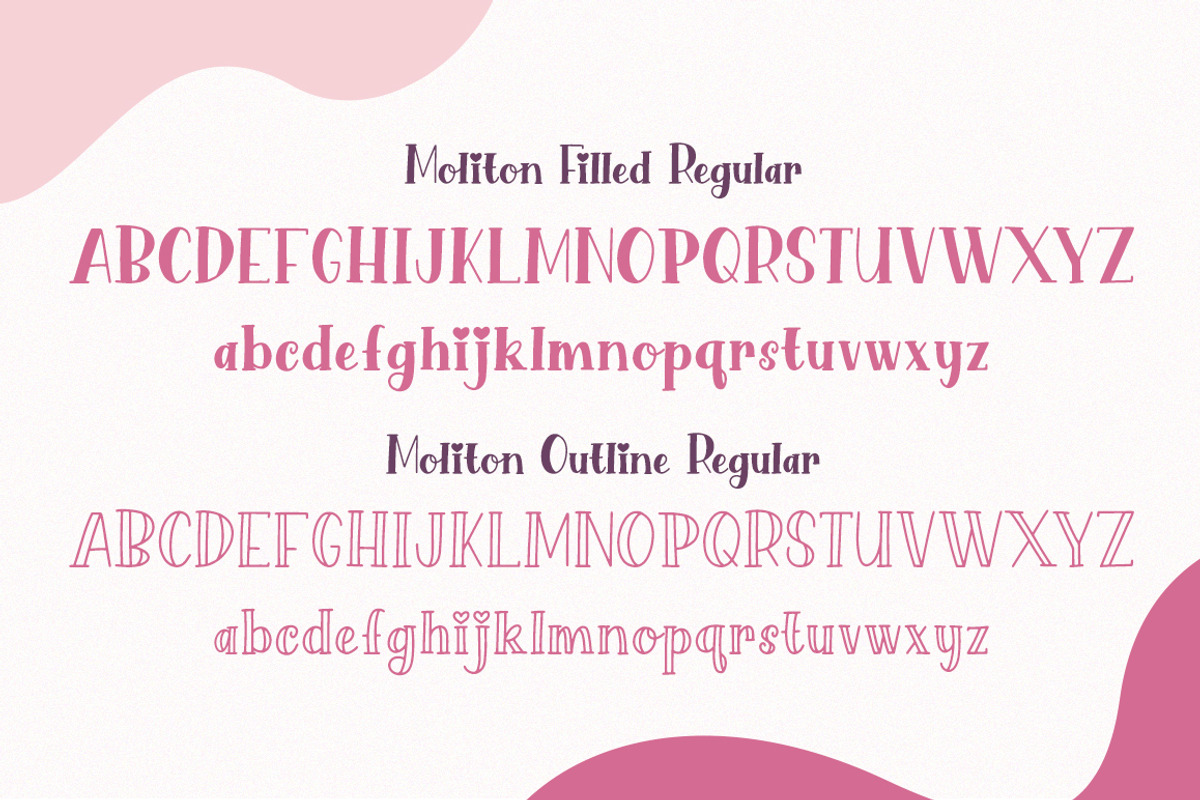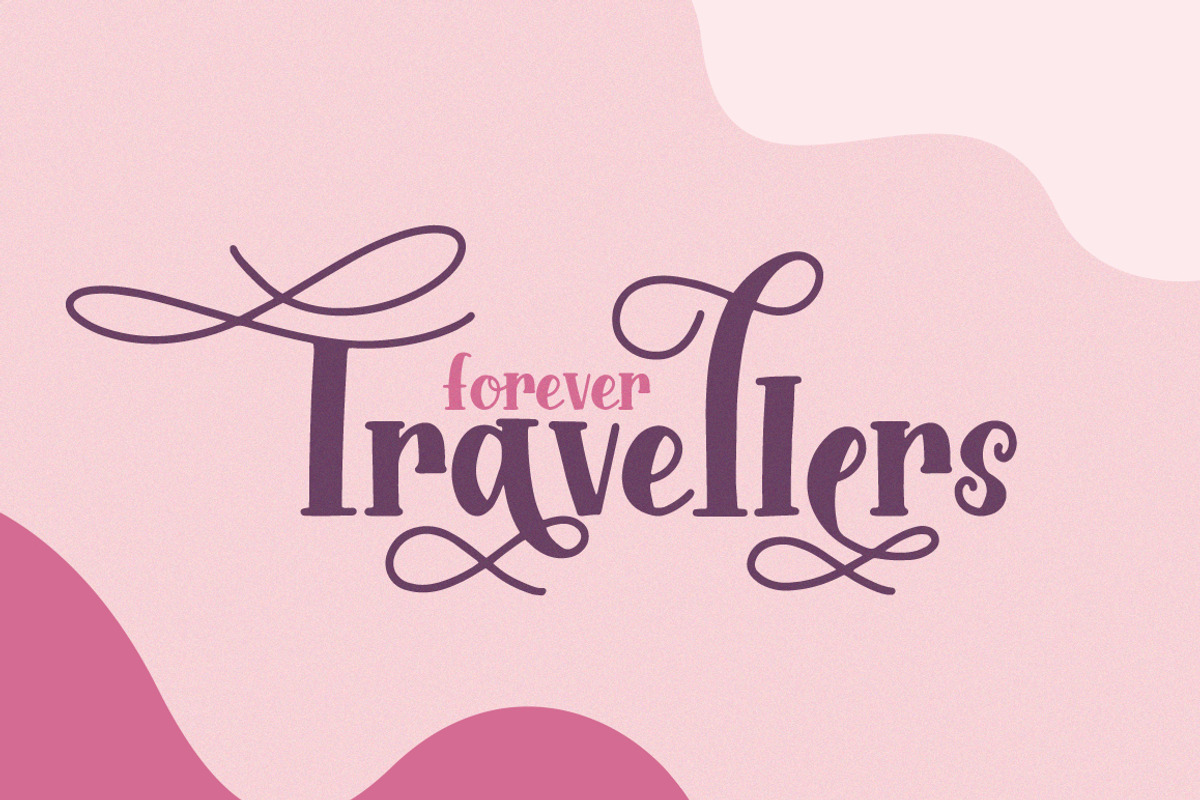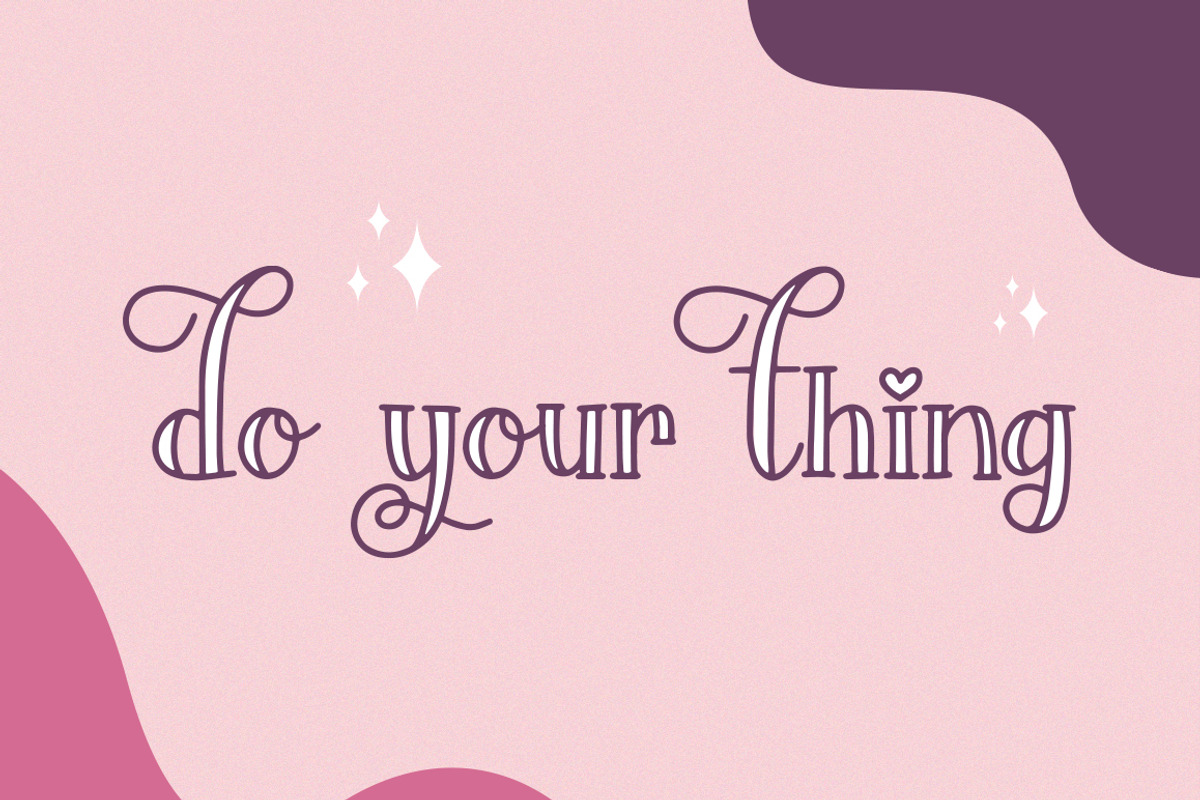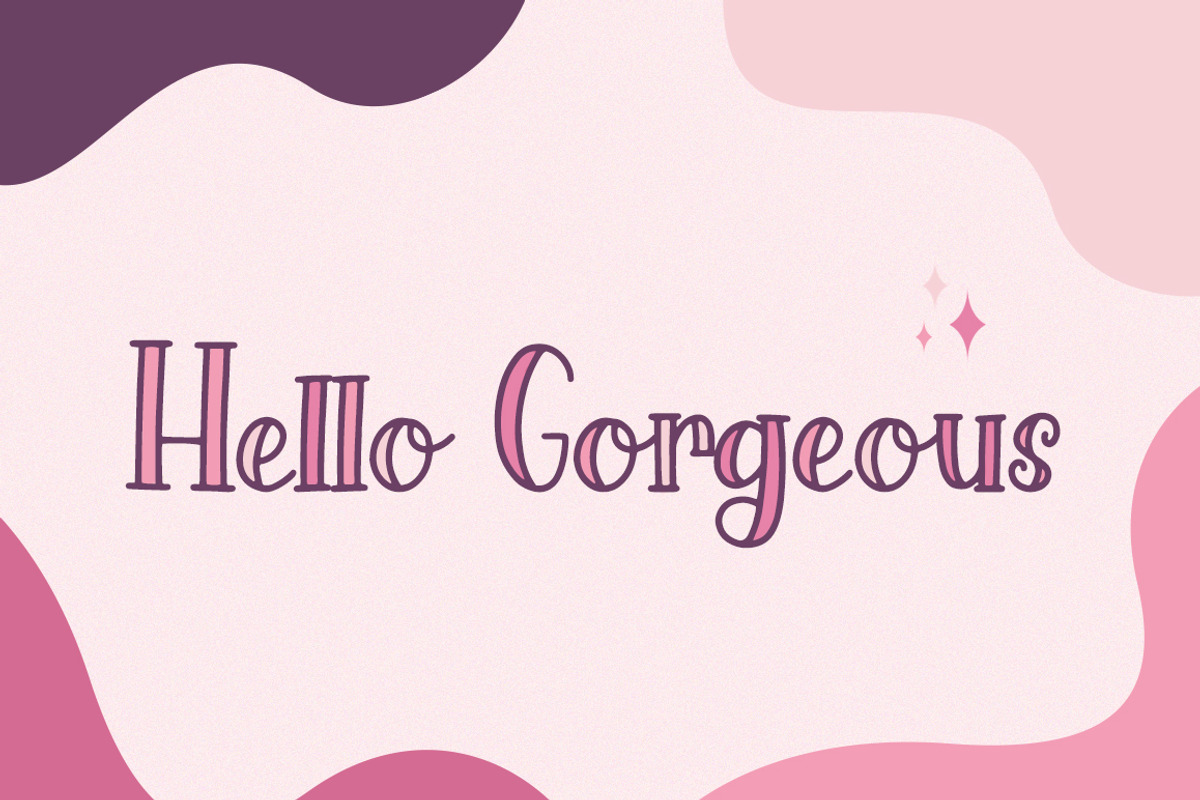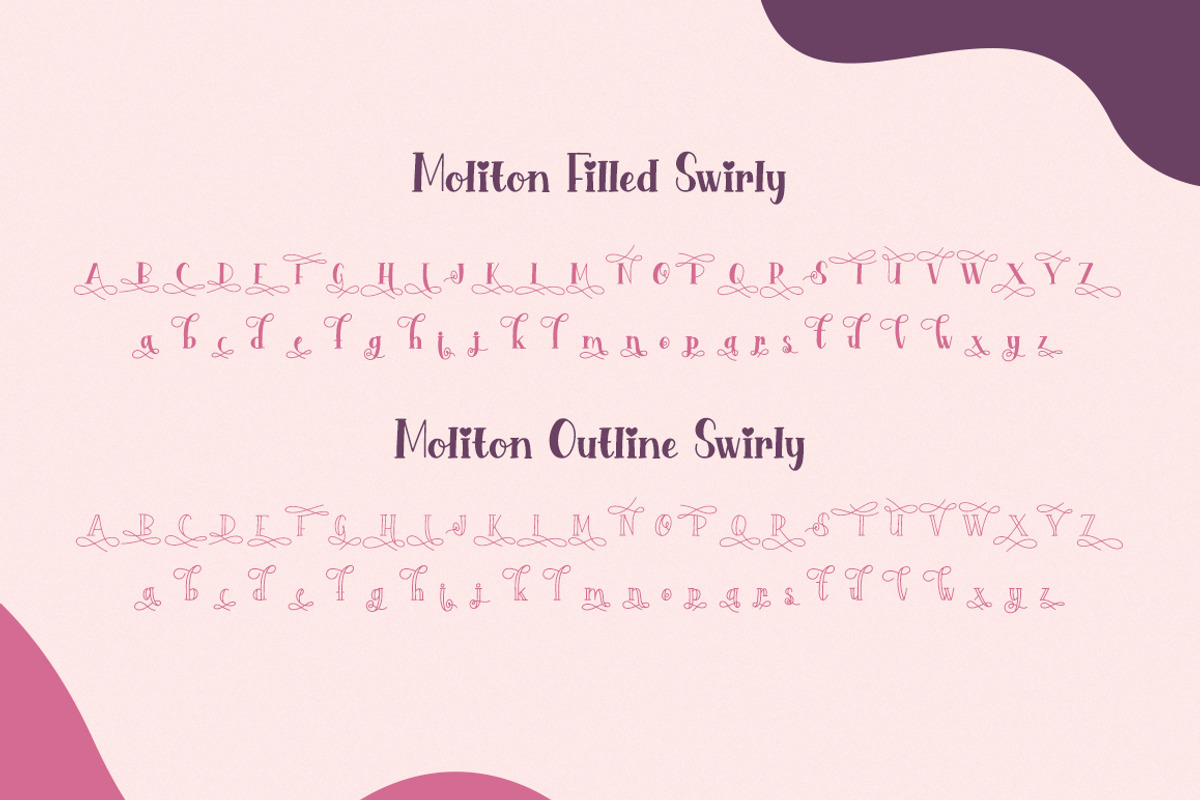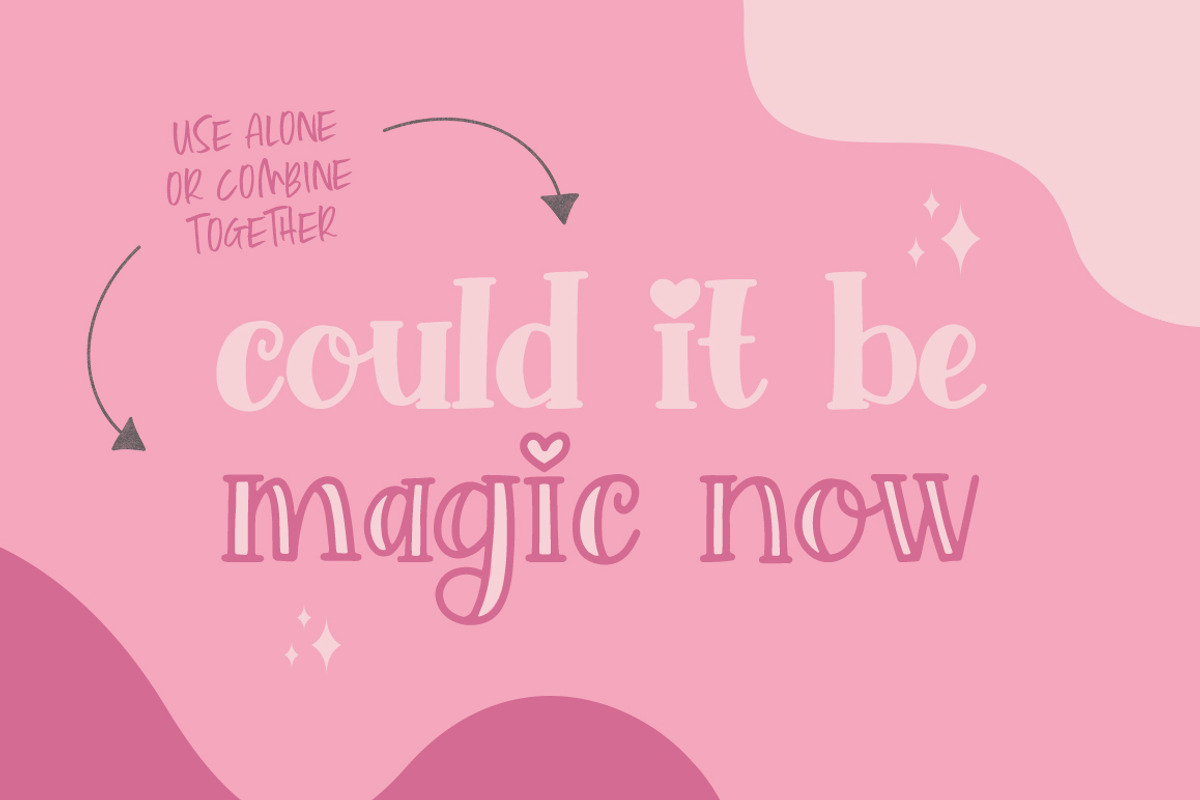
Moliton Serif Font Duo
This adorable new duo is a sweetie you don’t want to miss! It has hearts, swirls and tons of added sass that keeps your designs hand-written and awesome no matter what! Hand drawn and wonderful, don’t miss this cutie!
Moliton Serif Font Duo by Salt & Pepper Designs fits naturally into Branding, posters, packaging, typography.